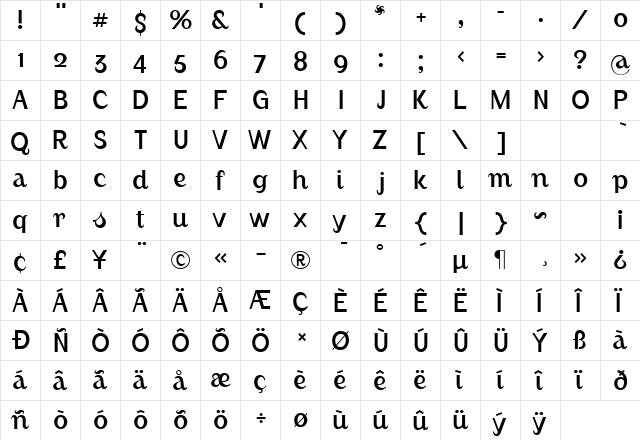
AugustLightAlternate Regular Font Preview
AugustLightAlternate Regular
Design Context for AugustLightAlternate Typeface
AugustLightAlternate takes a measured approach to typography — its balanced proportions and neutral character make it a reliable workhorse for both digital and print work. The delicate stroke weight brings airiness and refinement to layouts.